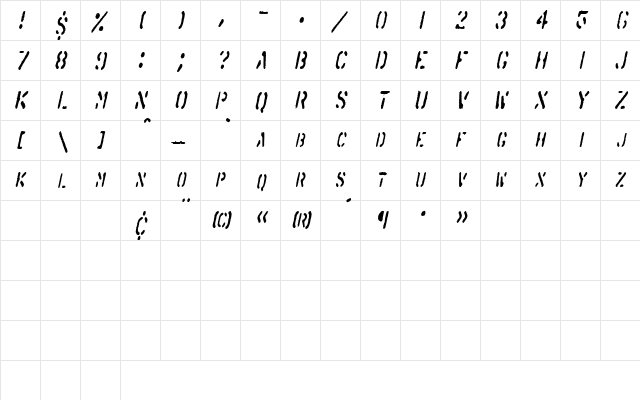
SprayStencilCondensed Oblique
Design Context for SprayStencilCondensed Typeface
SprayStencilCondensed borrows the utilitarian aesthetic of stencil lettering, with its characteristic cutaways and no-frills construction lending an industrial edge. The dynamic lean of this cut emphasises speed and emphasis in any layout.
A strong choice for packaging that needs edge, warehouse aesthetics, and rough-and-ready visual identities.
Pro Tip: Use SprayStencilCondensed at large sizes on packaging, posters, or apparel where the stencil cutaways read clearly. Avoid small sizes where those gaps become visual noise.